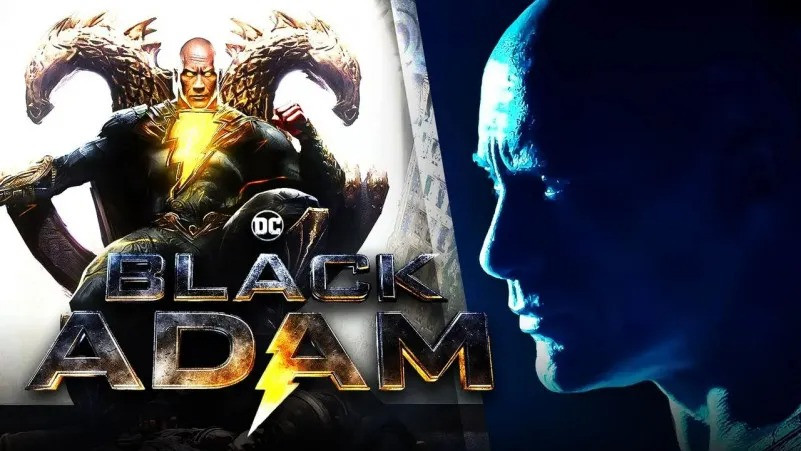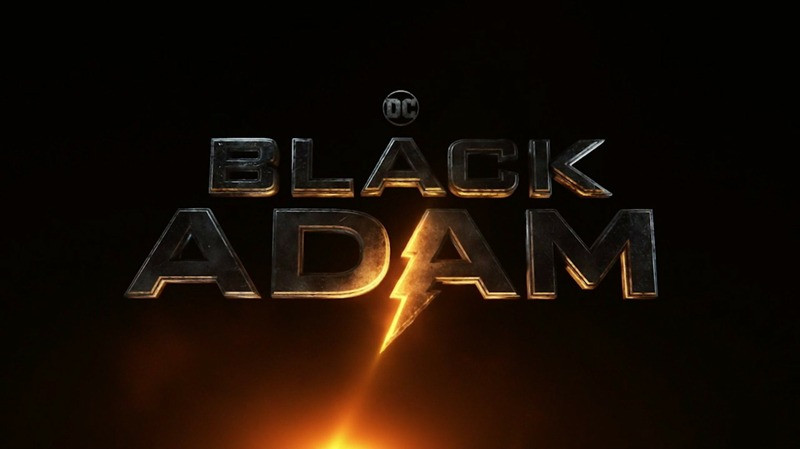
Dark Adam Font
Dark Adam Font, is a Sans Serif Display Font. He has a beautiful character. It fits perfectly with invitation card designs, company logos, movie titles, movie names, business cards, book titles, brand names and various other designs.